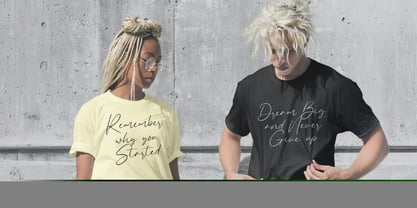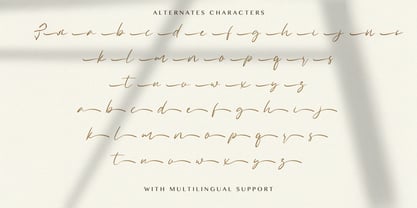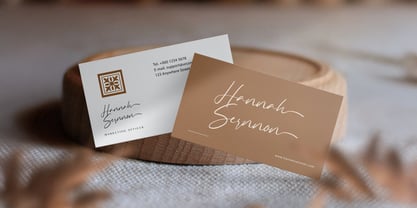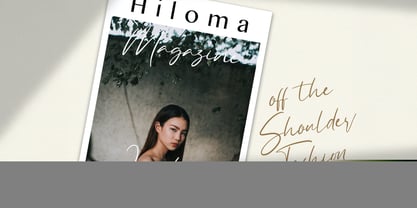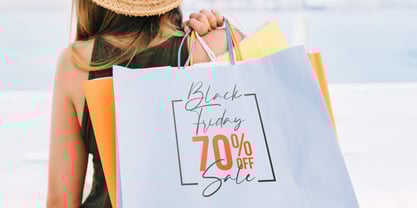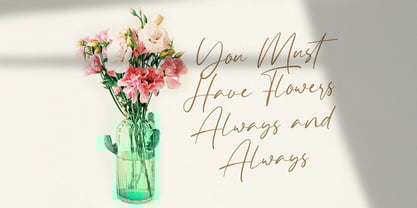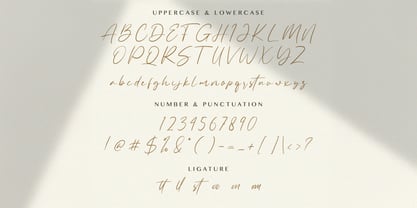
Allezia Sttacy
by Stringlabs Creative Studio
The Allezia Sttacy Font Family was designed by Virgiawan Listanto and published by Stringlabs Creative Studio. Allezia Sttacy contains 1 styles. More about this family
Allezia Sttacy is a graceful handwritten font with a modern, feminine touch. With its soft curves, smooth flow, and natural feel, this font adds a personal and stylish vibe to any design. It's perfect for those who love a clean, handwritten look with just the right amount of flair.
Designers: Virgiawan Listanto
Foundry: Stringlabs Creative Studio